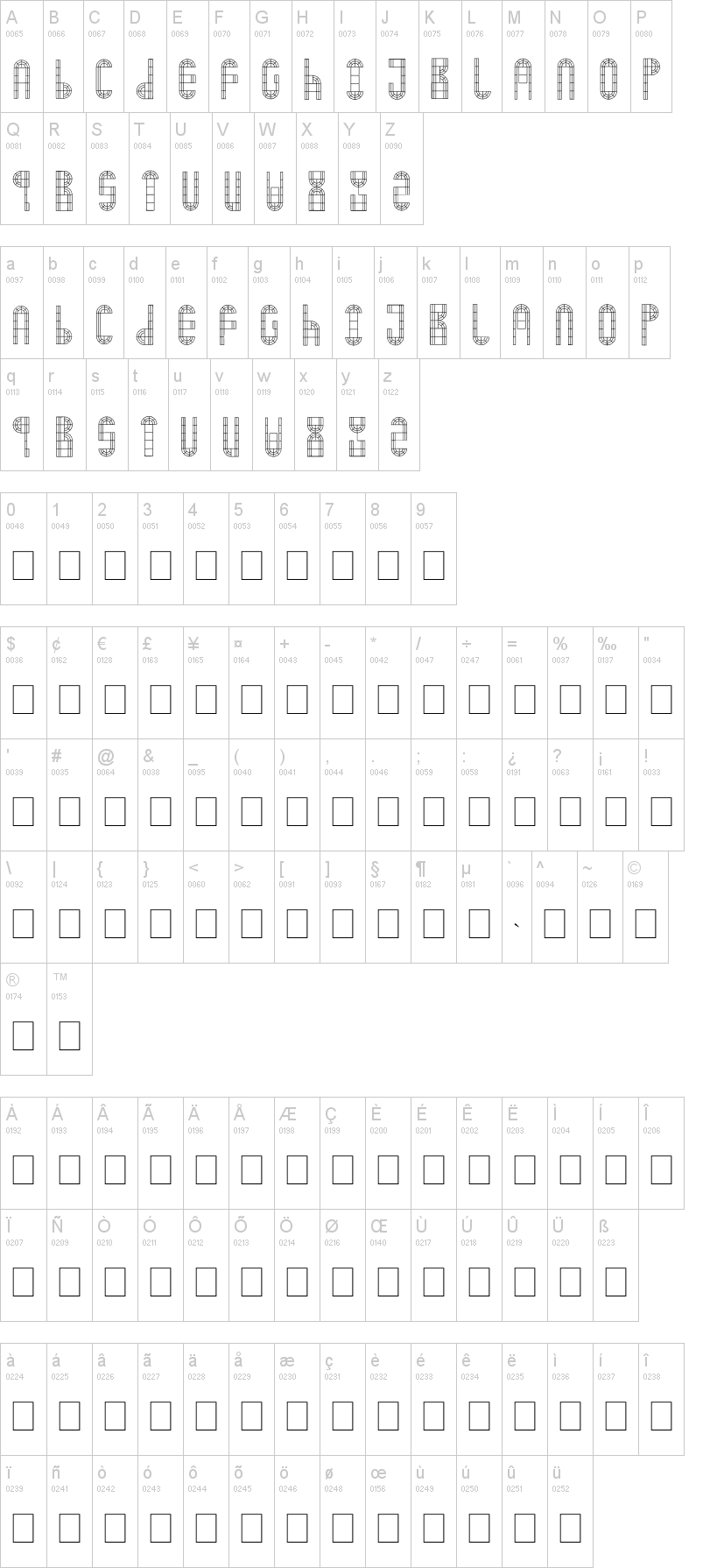
Шрифт Arch Window
This is my architectural font that I created in 2012.
The design was insprired by a style of arched windo in Carmarthen in Wales.
It is single cased, and has no numbers.